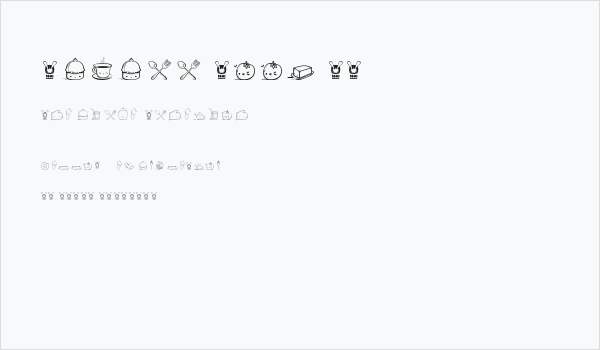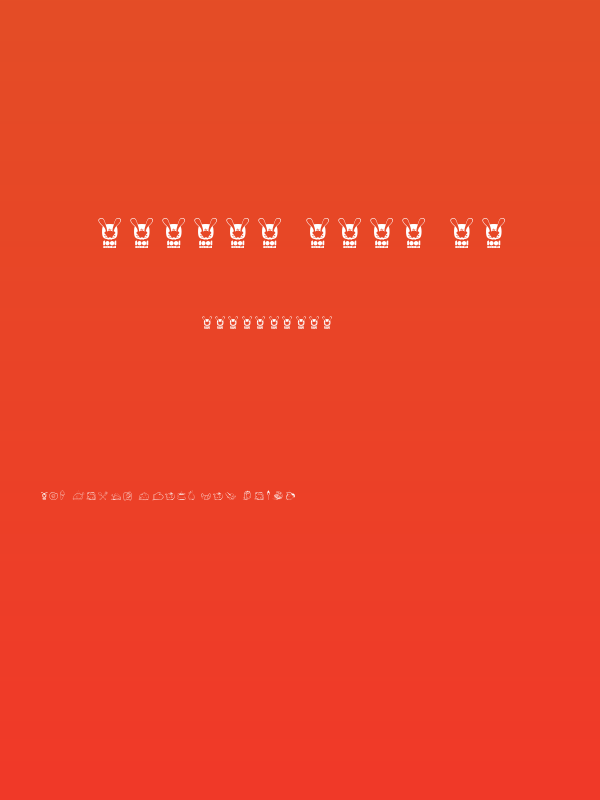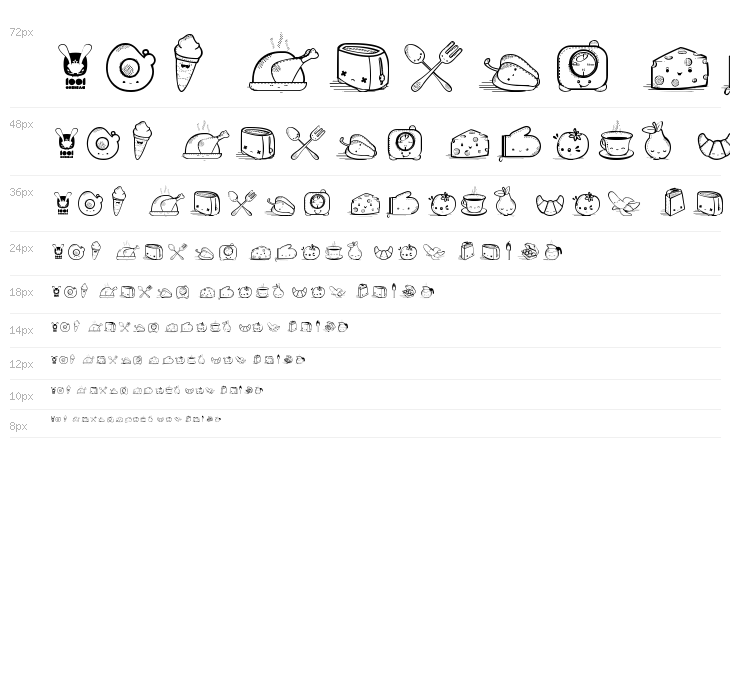
Kawaii Food II Font
Kawaii Food II Description
A playful, decorative dingbat font featuring hand-drawn kawaii-style food and kitchen illustrations, each character represented by a unique cute food or utensil icon with expressive faces and whimsical details.
| Overall Style | Decorative, Playful, Cute |
| Use Case | Icons, Decorative elements, Themed graphics |
| Proposed Projects | Children's books, recipe cards, food blogs, stickers, scrapbooking, playful branding, educational materials. |